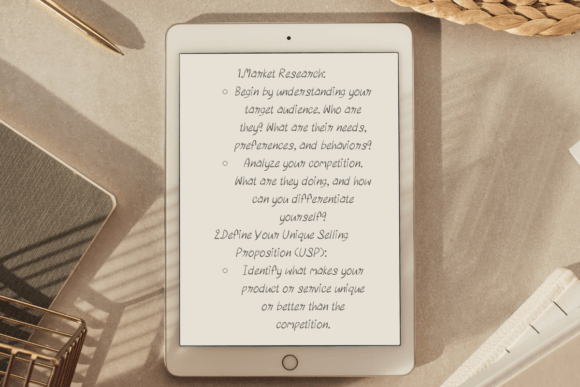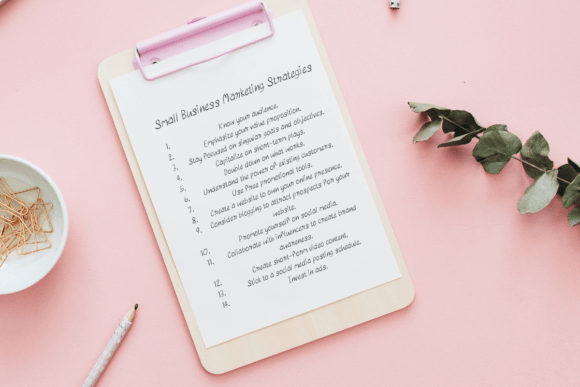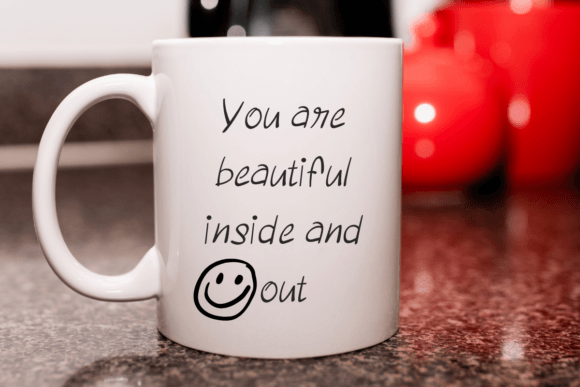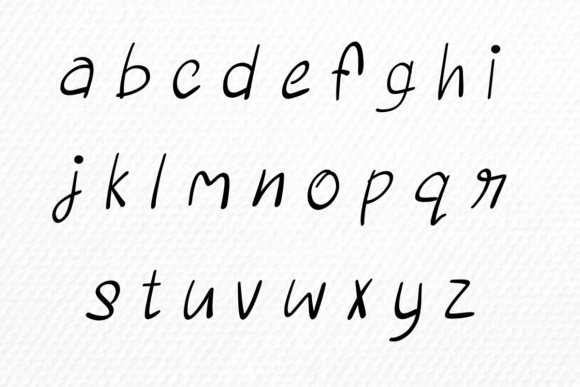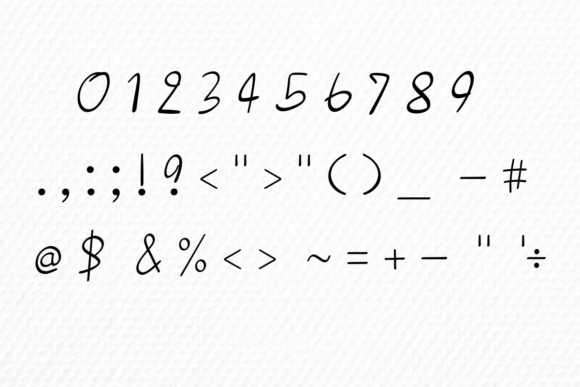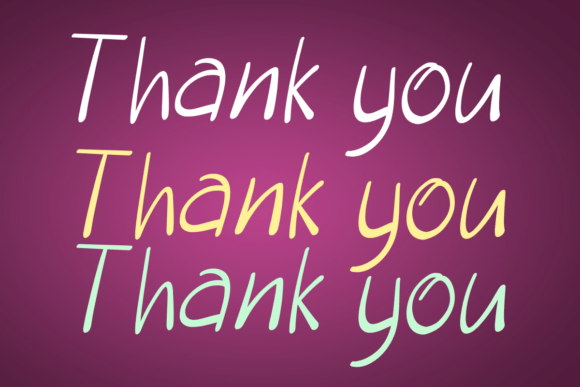
Introducing Bois Pissenlit: The Playful and Stylish Font for Your Creative Projects
Are you on the lookout for a font that exudes a youthful spirit and can elevate your designs to the next level? Look no further than Bois Pissenlit, a charming and versatile font that’s perfect for a wide range of creative projects. In this article, we’ll dive into the world of Bois Pissenlit, exploring its unique features, and discussing how it can be used to create stunning designs for both professional and casual settings.
What is Bois Pissenlit?
Bois Pissenlit is a beautifully crafted font that’s infused with a playful and stylish vibe. Its unique design makes it an excellent choice for designers and crafters looking to add a touch of personality to their work. Whether you’re working on a professional project or a casual design, Bois Pissenlit is sure to make a statement.
Key Features of Bois Pissenlit
So, what makes Bois Pissenlit stand out from the crowd? Here are some of its key features:
- Playful and youthful spirit: Bois Pissenlit has a fun and energetic vibe that’s perfect for designs that require a bit of whimsy.
- Versatile: This font is suitable for a wide range of projects, from professional-looking designs to casual and creative endeavors.
- Easy to read: Bois Pissenlit is clear and legible, making it perfect for body text and headings.
- Highly customizable: With Bois Pissenlit, you can experiment with different font sizes, colors, and styles to create a unique look that suits your design.
Professional Uses for Bois Pissenlit
Bois Pissenlit is more than just a playful font – it’s also suitable for professional-looking projects. Here are some ways you can use it in your work:
- Branding designs: Create a lasting impression with Bois Pissenlit, perfect for logos, business cards, and letterheads.
- Labels and packaging: Add a touch of personality to your product labels and packaging with this charming font.
- Websites: Use Bois Pissenlit to create a unique and engaging online presence.
- Business cards: Stand out from the crowd with Bois Pissenlit, perfect for business cards and other networking materials.
Casual Uses for Bois Pissenlit
But Bois Pissenlit isn’t just limited to professional projects. Here are some casual design ideas where this font shines:
- Packaging design: Add a playful touch to your product packaging with Bois Pissenlit.
- Posters and flyers: Create eye-catching posters and flyers with Bois Pissenlit’s bold and playful design.
- Social media posts: Use Bois Pissenlit to create engaging social media posts that stand out from the crowd.
- Invitations and special occasions cards: Make your invitations and special occasions cards more personal and memorable with Bois Pissenlit.
- Quotes and typography art: Experiment with Bois Pissenlit to create stunning typography art and quote designs.
Tips for Using Bois Pissenlit
To get the most out of Bois Pissenlit, here are some tips to keep in mind:
- Experiment with font sizes and styles: Play around with different font sizes and styles to create visual interest and hierarchy.
- Pair with complementary fonts: Combine Bois Pissenlit with other fonts to create a unique and harmonious design.
- Use it sparingly: While Bois Pissenlit is a beautiful font, it’s best used sparingly to avoid overwhelming the design.
In conclusion, Bois Pissenlit is a versatile and playful font that’s perfect for a wide range of creative projects. Its unique features, combined with its ease of use, make it an excellent choice for designers and crafters looking to add a touch of personality to their work. Whether you’re working on a professional or casual design, Bois Pissenlit is sure to make a statement.